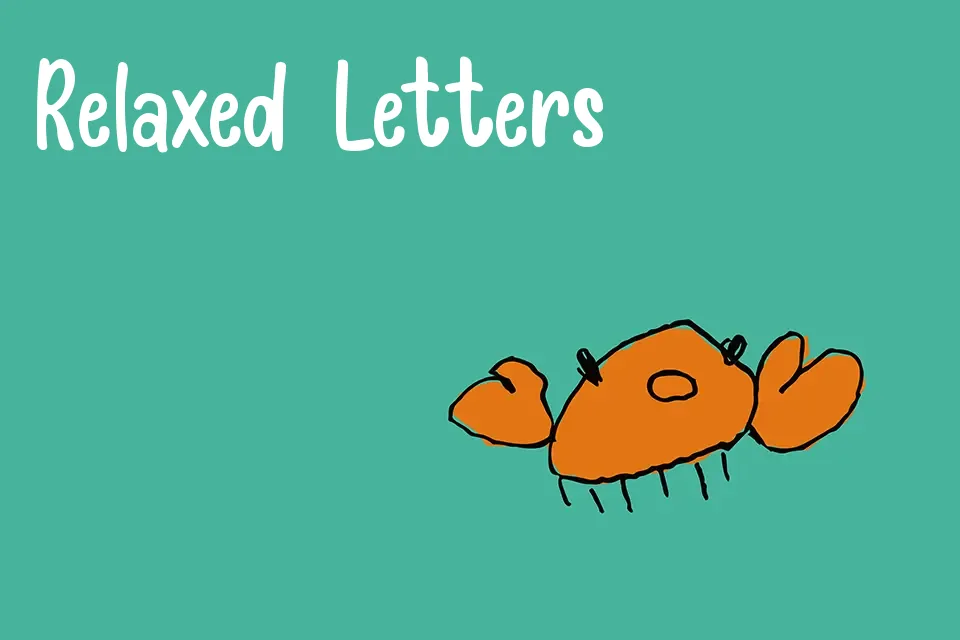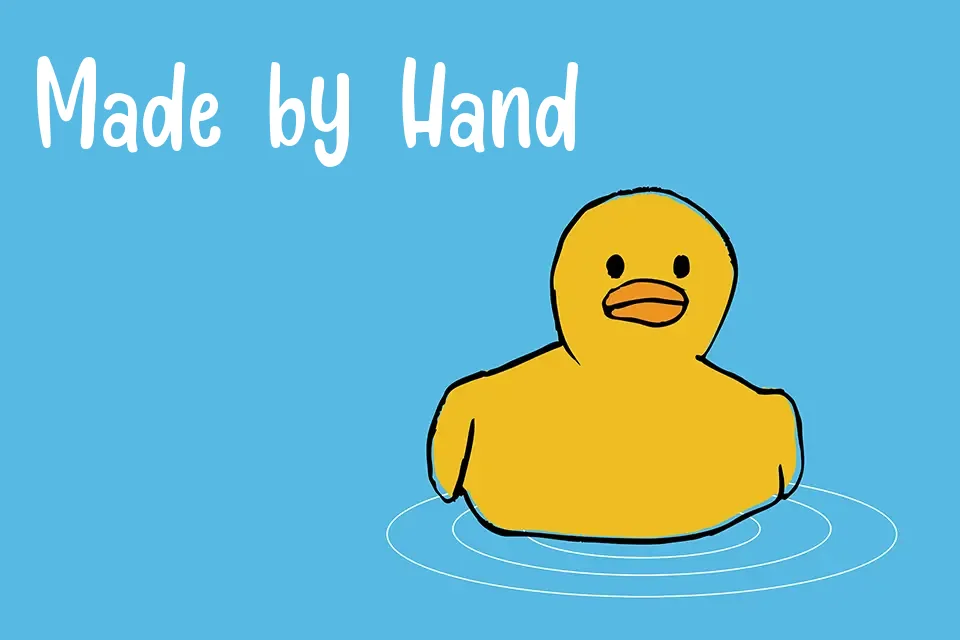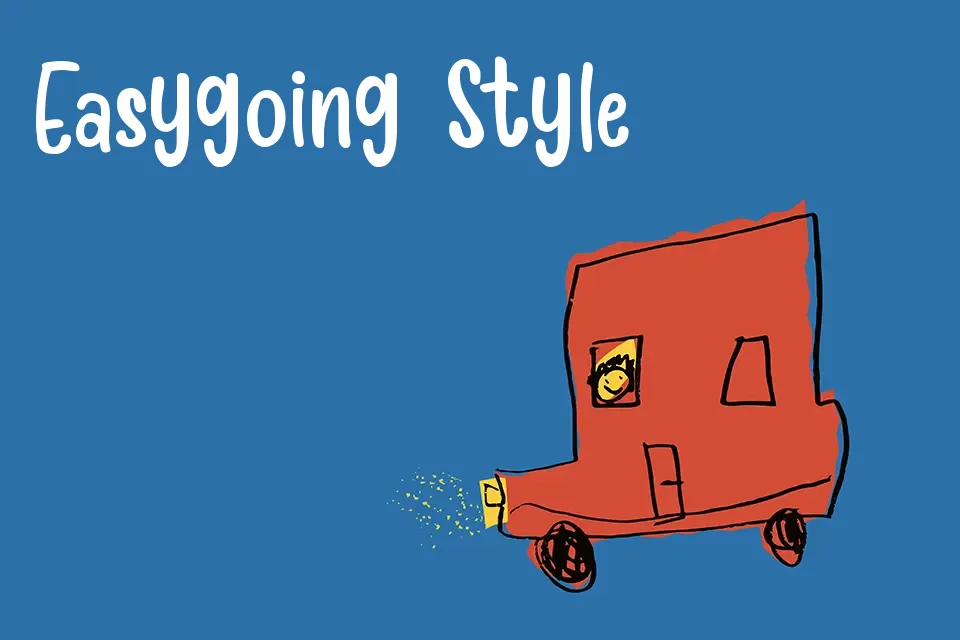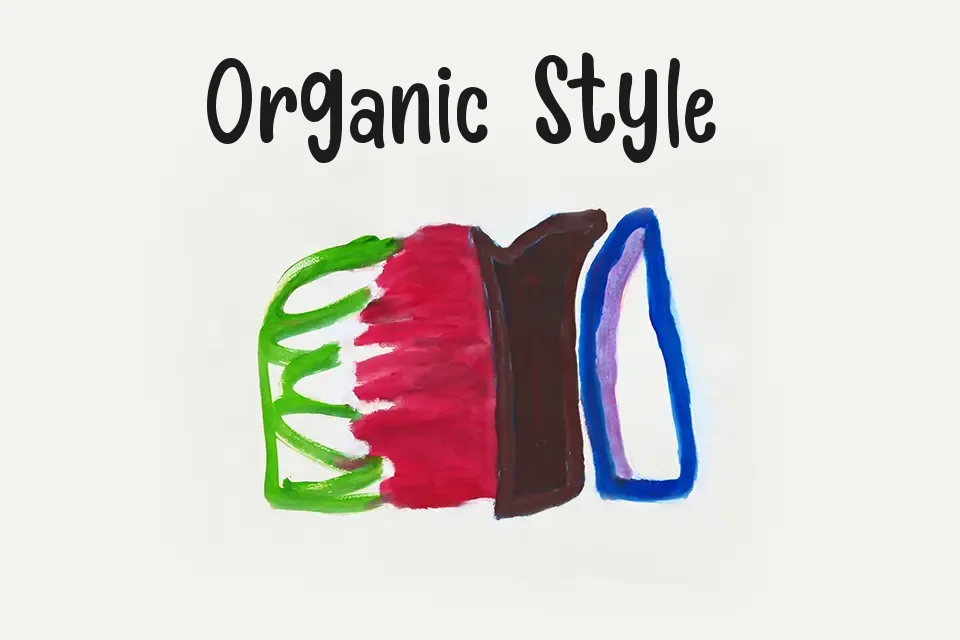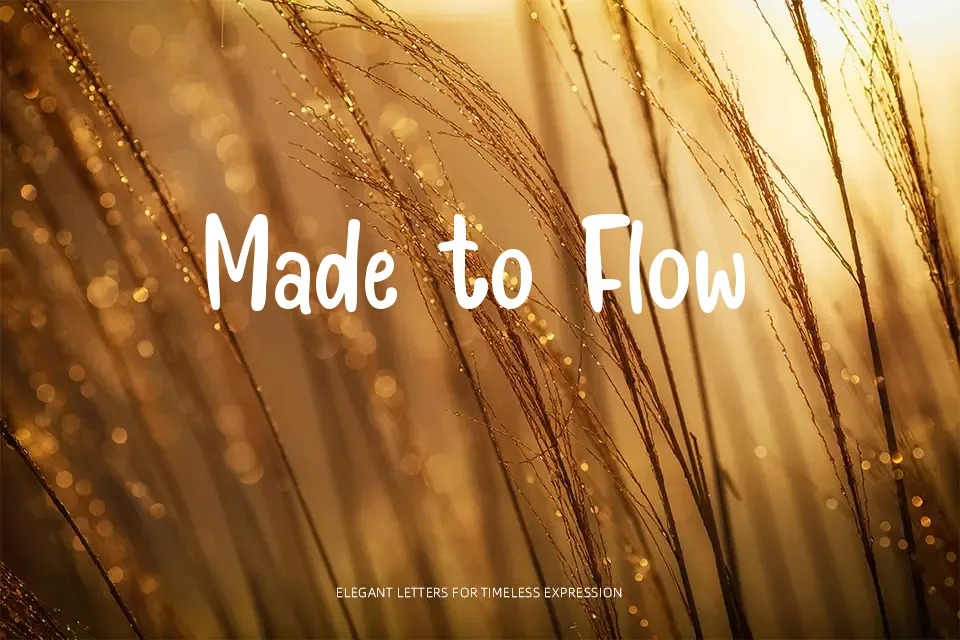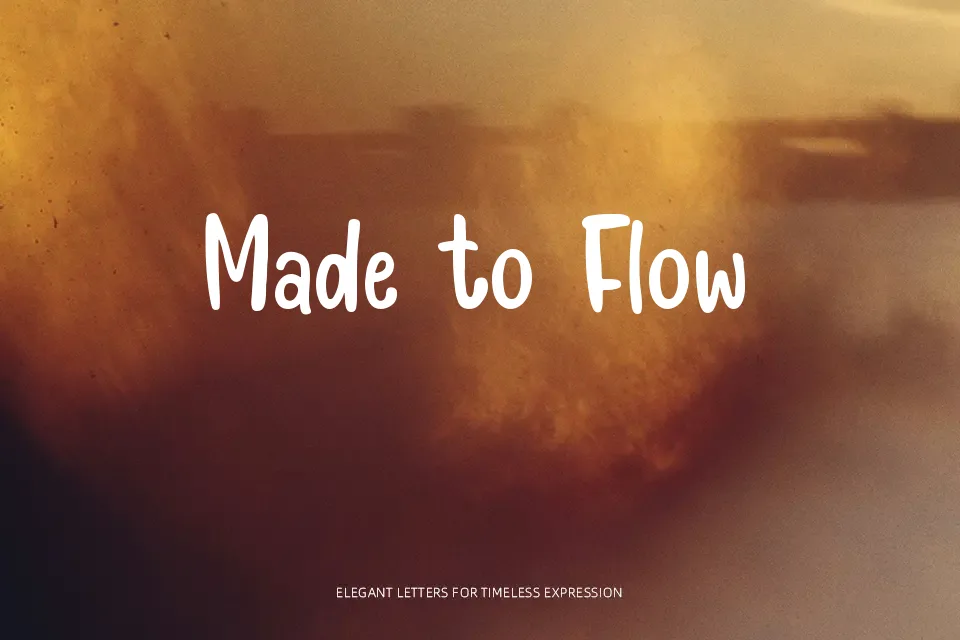
Baby Smooch Font
There’s a deliberate softness to Baby Smooch that sets it apart from sharper script fonts — its rounded strokes and warm curves read less like lettering and more like a quick, affectionate note. The overall weight is balanced without feeling heavy, and the letterforms stay legible even at smaller display sizes. This makes it a workable pick for children’s birthday invitations, handmade-style product labels, or casual social media headers where personality matters more than polish. That said, pairing it with body copy is where it falls flat — the informal rhythm becomes distracting in longer text blocks, and it doesn’t hold up well in formal or corporate contexts. Works best when used sparingly as a title or accent element.
Best For:- Children’s birthday or baby shower invitations
– Handmade product labels and packaging headers
– Social media quote cards and story graphics
– Casual poster headlines for family or lifestyle events
Not Ideal For:- Body text or multi-line paragraph copy
– Corporate reports, legal documents, or formal proposals
– Minimal or editorial design layouts
– High-resolution print work requiring tight typographic control
Perfect for invitation, kids, and packaging, with a cute and cartoon style.